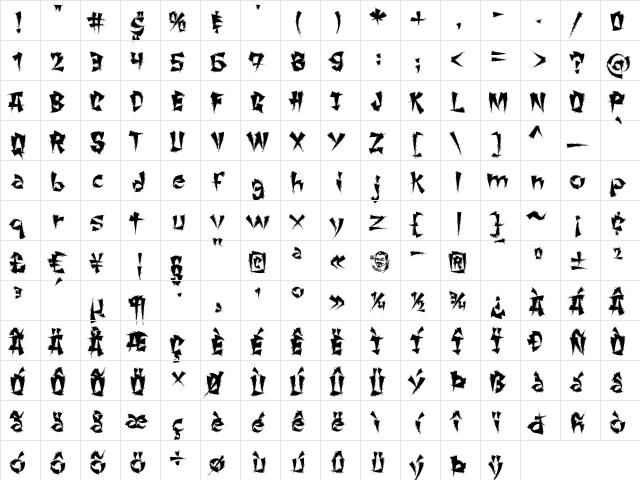
ChangChangWoodcut Regular
Design Context for ChangChangWoodcut Typeface
ChangChangWoodcut echoes the hand-painted signage and woodblock typography of the American frontier, with a warm, rugged personality.
A natural fit for craft spirits, ranch branding, rodeo events, and Americana-inspired design work.
Font Pairing: Combine ChangChangWoodcut with a simple slab or neutral sans — period-accurate companions reinforce the vintage feel without competing for attention.
Pro Tip: Use ChangChangWoodcut for short, impactful bursts of text — it shines in poster headlines and product names rather than extended copy.